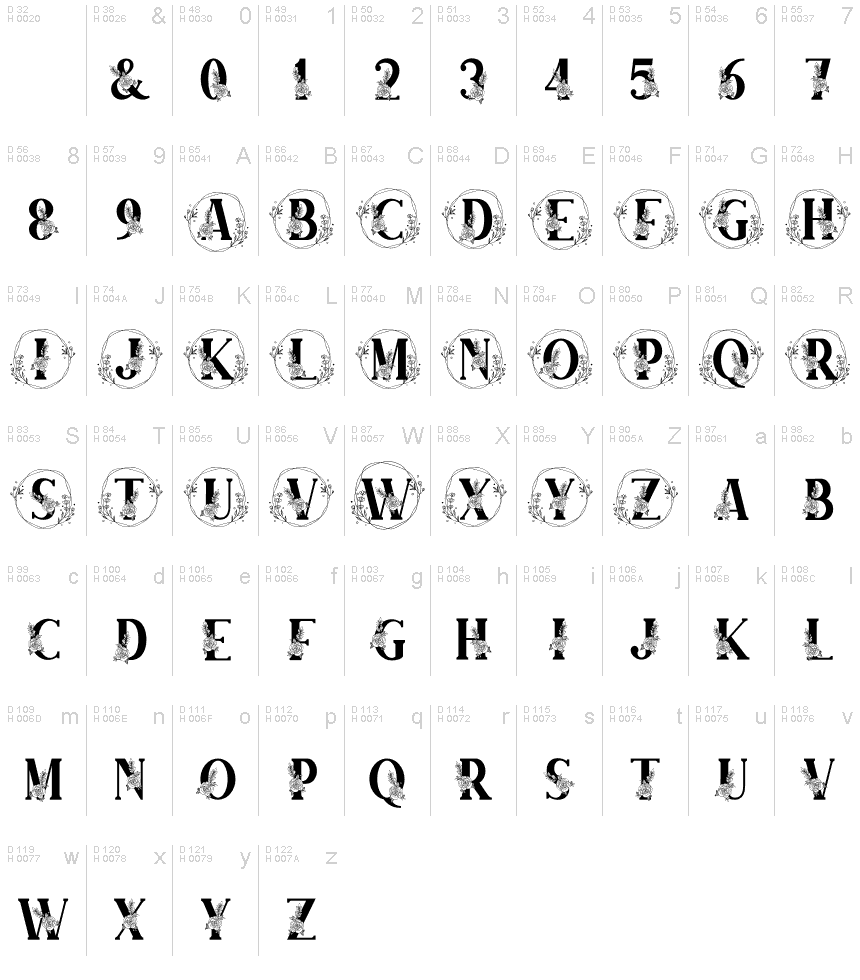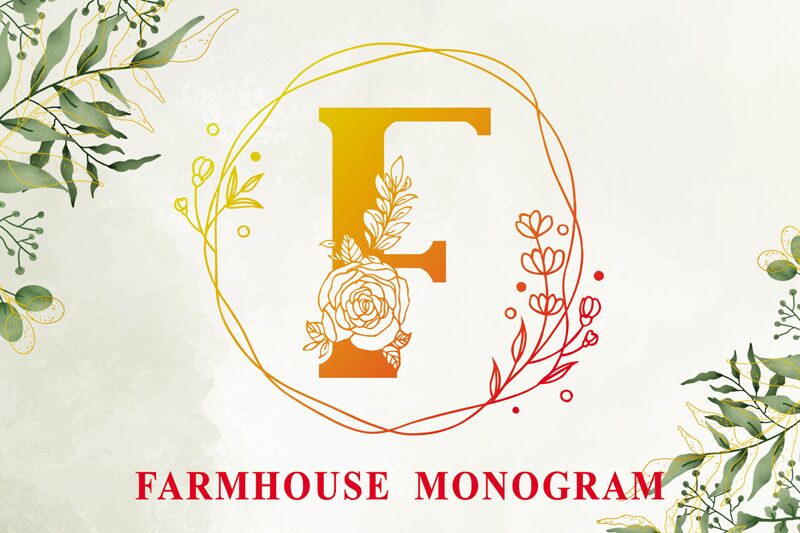
Farmhouse Monogram
Mozarella.std's Farmhouse Monogram is a decorative, display font perfect for crafting charming logos, monograms and other typographic designs. Its bold, condensed style brings a hint of rustic flair to projects like stationery, wedding invitations or branding. Farmhouse Monogram is sure to make any design stand out!